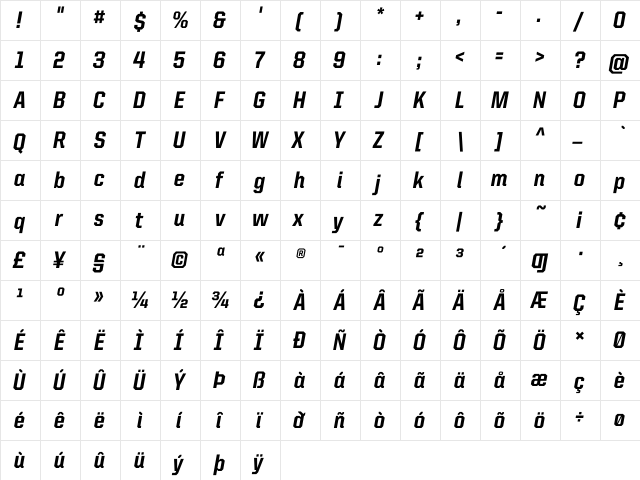
United Italic SemiCond Heavy Font Preview
| Foundry | House Industries |
| Designer | Tal Leming |
Design Context for United Italic SemiCond Typeface
United Italic SemiCond takes a measured approach to typography — its balanced proportions and neutral character make it a reliable workhorse for both digital and print work. The dynamic lean of this cut emphasises speed and emphasis in any layout. Its narrow stance lets it pack a punch even in space-constrained designs.
Pro Tip: Try United Italic SemiCond for annotation and caption copy alongside an upright companion — the contrast in angle creates a dynamic but ordered typographic system.